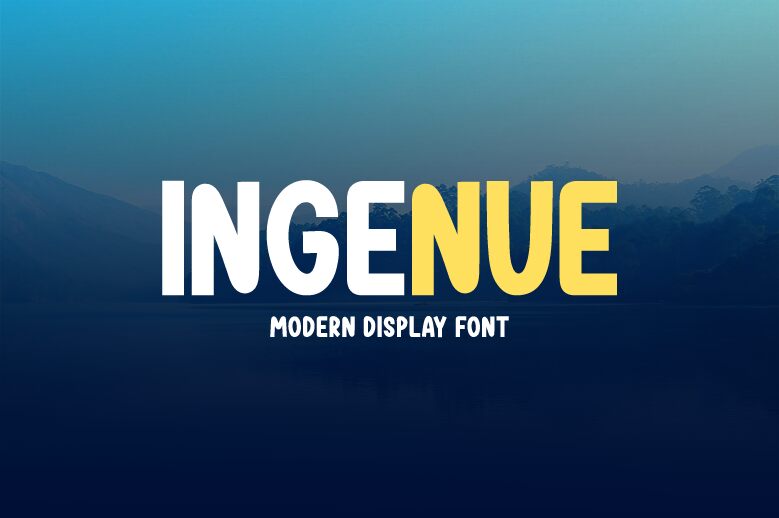
Ingenue, designed by Md Shohail Bhuian, is a bold and condensed display font that exudes cartoonish charm with every character. Its playful strokes and solid form offer an aesthetic appeal that captures the essence of fun while maintaining readability. Ingenue's unique style makes it perfect for creative projects that require a touch of whimsy without sacrificing impact.
Whether it's for eye-catching headlines, spirited advertising campaigns, or engaging children's book titles, this font stands out due to its distinctive condensed format and substantial weight. Dive into the world of Ingenue where fonts are not just about words but also about the personality they bring to your design narrative.